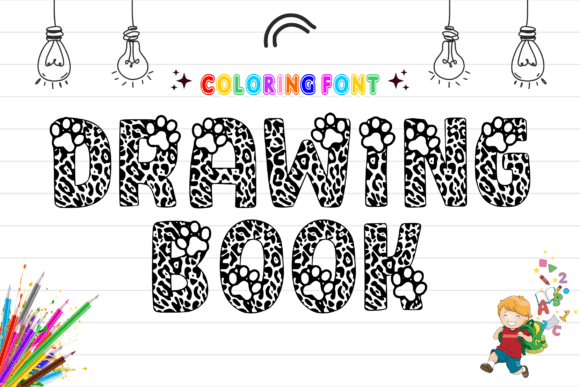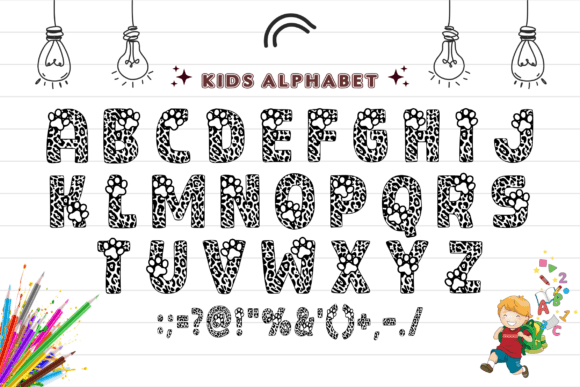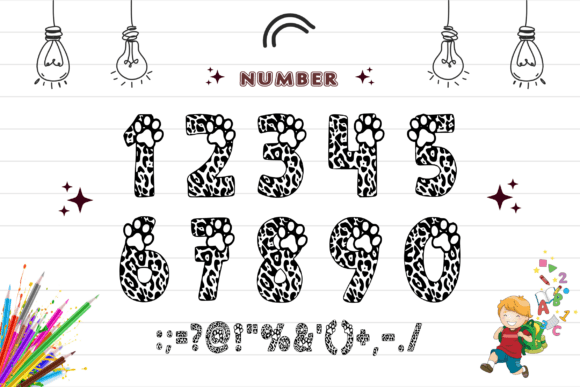
Introduction to Leopardstyle Regular Font Font
Fonts play a crucial role in design, and the Leopardstyle Regular Font font is a typeface that brings both character and versatility to any project. Whether you’re working on a branding project, a website, or a print design, the Leopardstyle Regular Font font offers a unique style that can elevate your work.
Leopard Style typeface is an extraordinary decorative font that roars with character.
Taking inspiration from the majestic animal kingdom, this typeface features the distinctive markings of a leopard, making it an unmistakable choice for any creative project Itβs an excellent enhancement for sublimation designs across t-shirts, mugs, and tote bags.
Key Features of Leopardstyle Regular Font Font
Why Choose Leopardstyle Regular Font Font?
The Leopardstyle Regular Font font is more than just a typeface β it’s a design tool that helps you communicate your message with style and clarity. Its unique character set and versatile design make it suitable for a wide range of applications, from elegant invitations to bold headlines.
With its carefully crafted letterforms and balanced proportions, the Leopardstyle Regular Font font ensures readability and visual appeal across all mediums.
What makes Leopardstyle Regular Font font special?
The Leopardstyle Regular Font font stands out with its unique design, exceptional readability, and versatility across various design applications.